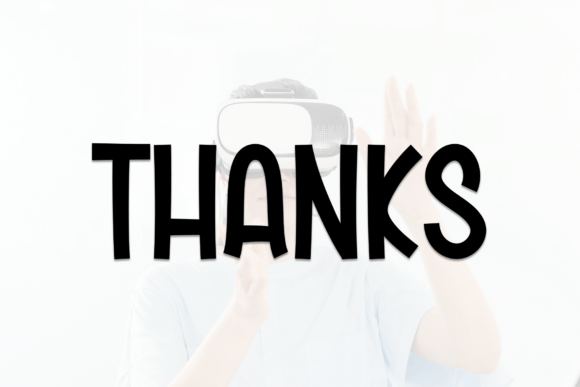
The Digital Dialog Font: A Designer’s New Best Friend
Have you ever been in the middle of a design project, and suddenly, you just can’t seem to find the right font? I’ve been there, done that, and got the t-shirt. It was a typical Wednesday afternoon when I was working on a branding project for a new fashion label. The client wanted something that exuded luxury and elegance but still felt casual and approachable. That’s when I stumbled upon the Digital Dialog font.
This handwritten font, which looks like it was drawn with a marker, instantly caught my eye. Its relaxed and sporty feel seemed like the perfect fit for the project. In this article, I’ll share my experience with the Digital Dialog font, its features, and how you can make the most of it in your designs.
• ✨ The font’s unique, marker-drawn aesthetic adds a personal touch to any design.
• ✅ It’s incredibly versatile and can be used for a wide range of projects, from branding and logos to wedding supplies and greeting cards.
• 💃 The font’s relaxed and sporty feel makes it perfect for designs that need to convey a sense of luxury and elegance without being too formal.
• 🎉 It’s easy to read and works well in both large and small sizes.
While I absolutely love the Digital Dialog font, there are a few things to keep in mind:
• 🤔 The font can be a bit quirky when it comes to kerning, so make sure to adjust it manually for optimal results.
• ⚠️ Some characters, like the uppercase letters, can be a bit inconsistent in terms of width, which may affect the overall flow of your text.
The Story Behind Digital Dialog
The Digital Dialog font was created by a talented designer who wanted to create a font that would capture the essence of handwritten text in a digital age. Inspired by the imperfections and quirks of marker-drawn text, the designer crafted a font that would be both elegant and casual. Today, Digital Dialog is a popular choice among designers and crafters alike.
Q: What is the Digital Dialog font best used for?
A: The Digital Dialog font is best used for branding, logos, wedding supplies, greeting cards, fashion, lookbooks, marketing promotions, and any design project that requires a luxurious and elegant yet casual feel.
Q: Is the Digital Dialog font easy to read?
A: Yes, the Digital Dialog font is easy to read and works well in both large and small sizes.